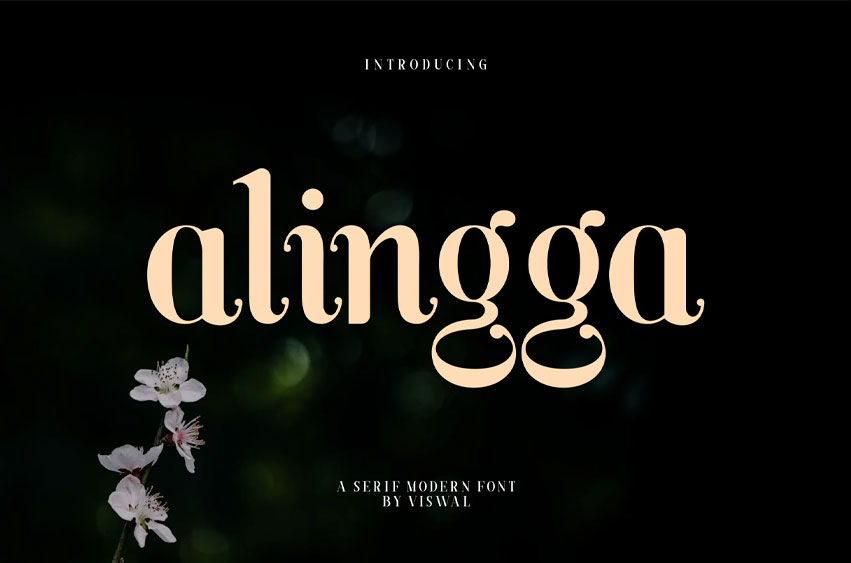
Alingga Font
Alingga Font Is A Beauty, Elegant Font. Can Make It Easier To Convey The Message In Your Design. Font Is Suitable For logos, Labels, badges, Branding, magazines, posters, titles, Gigs, Covers, etc. Our Fonts Have Uppercase & Lowercase, numerals & Punctuation, and Opentype Features. For Amazing Designs, You Can Mix With Other Fonts As A Complement.